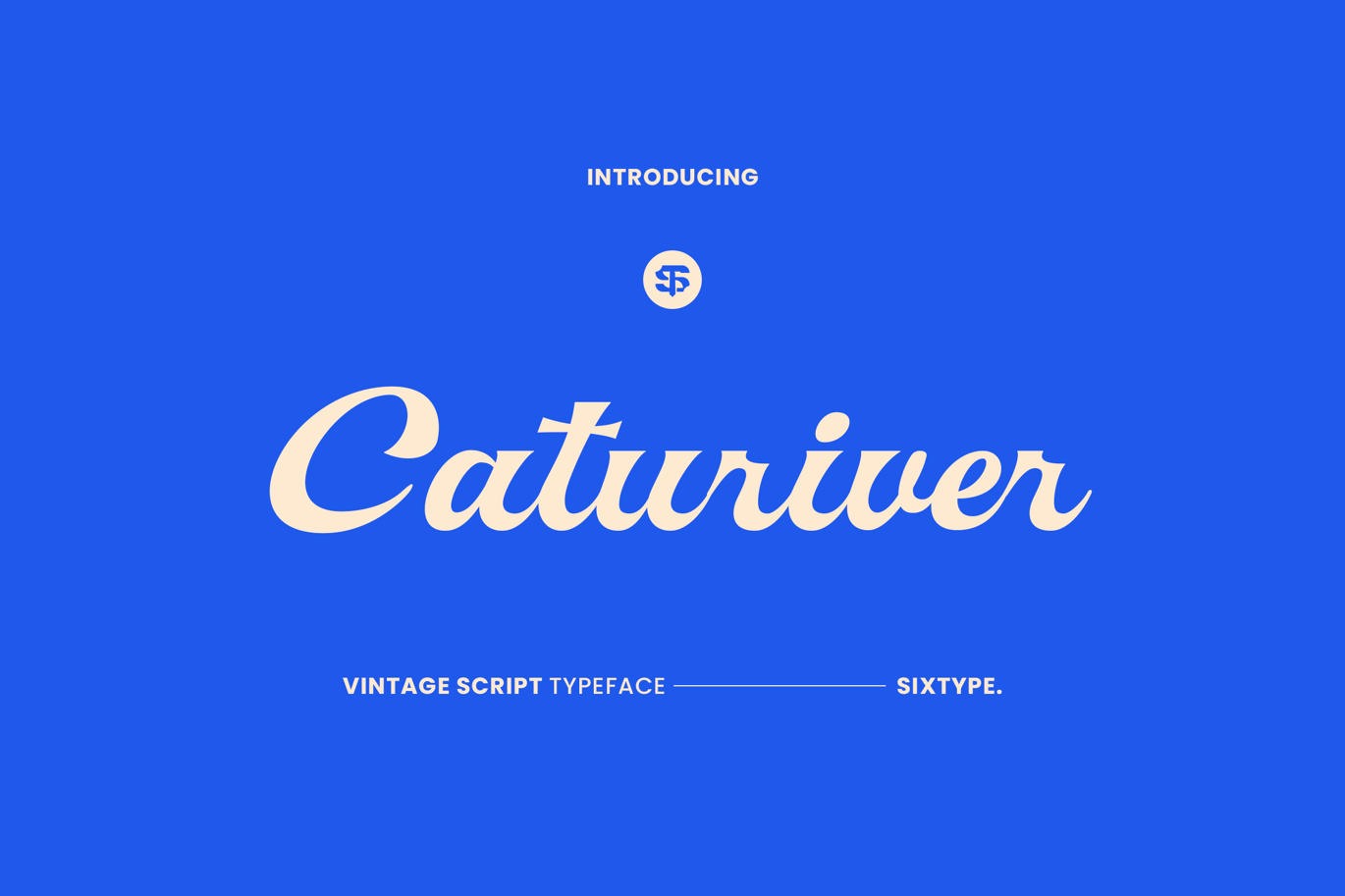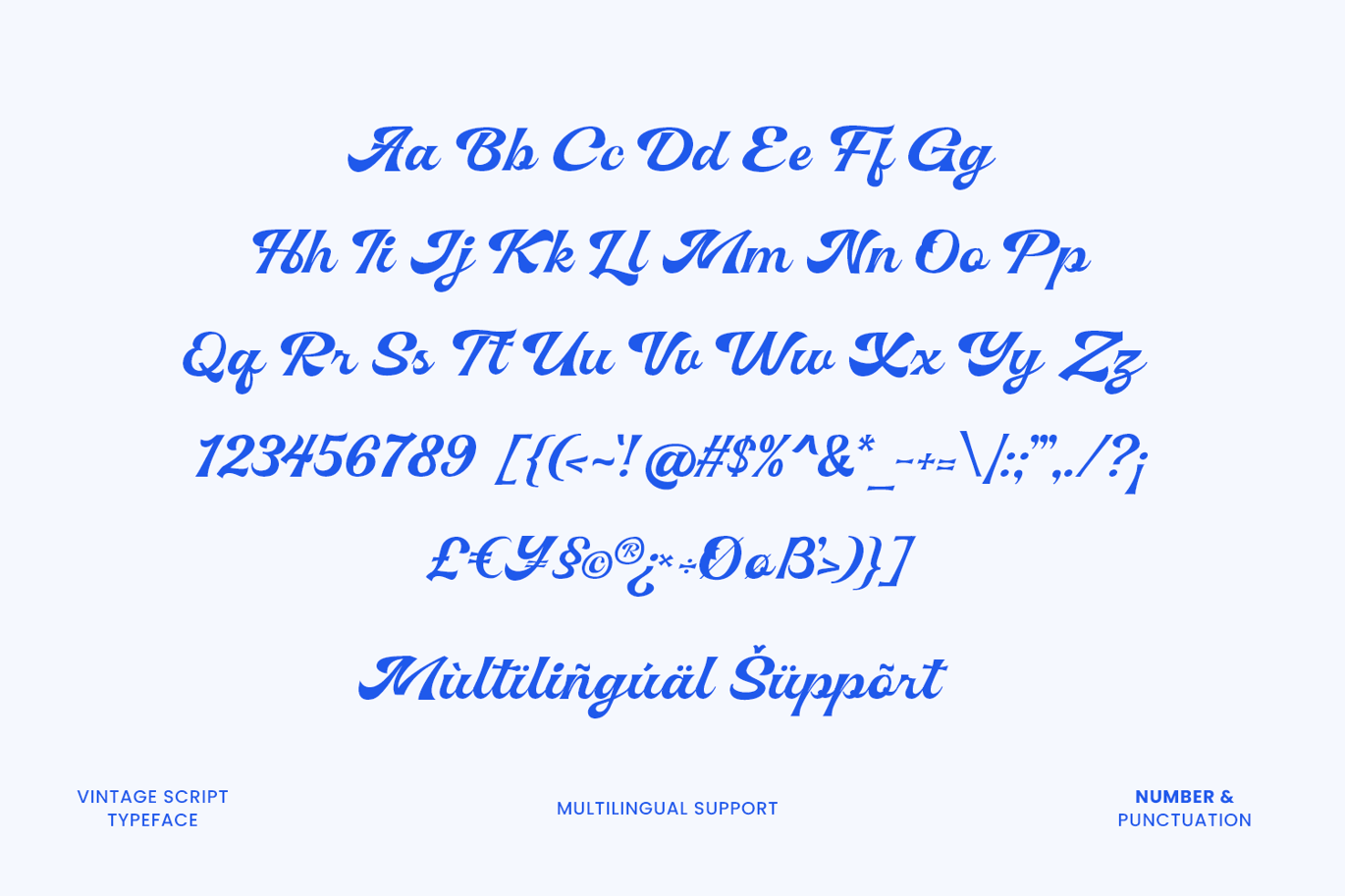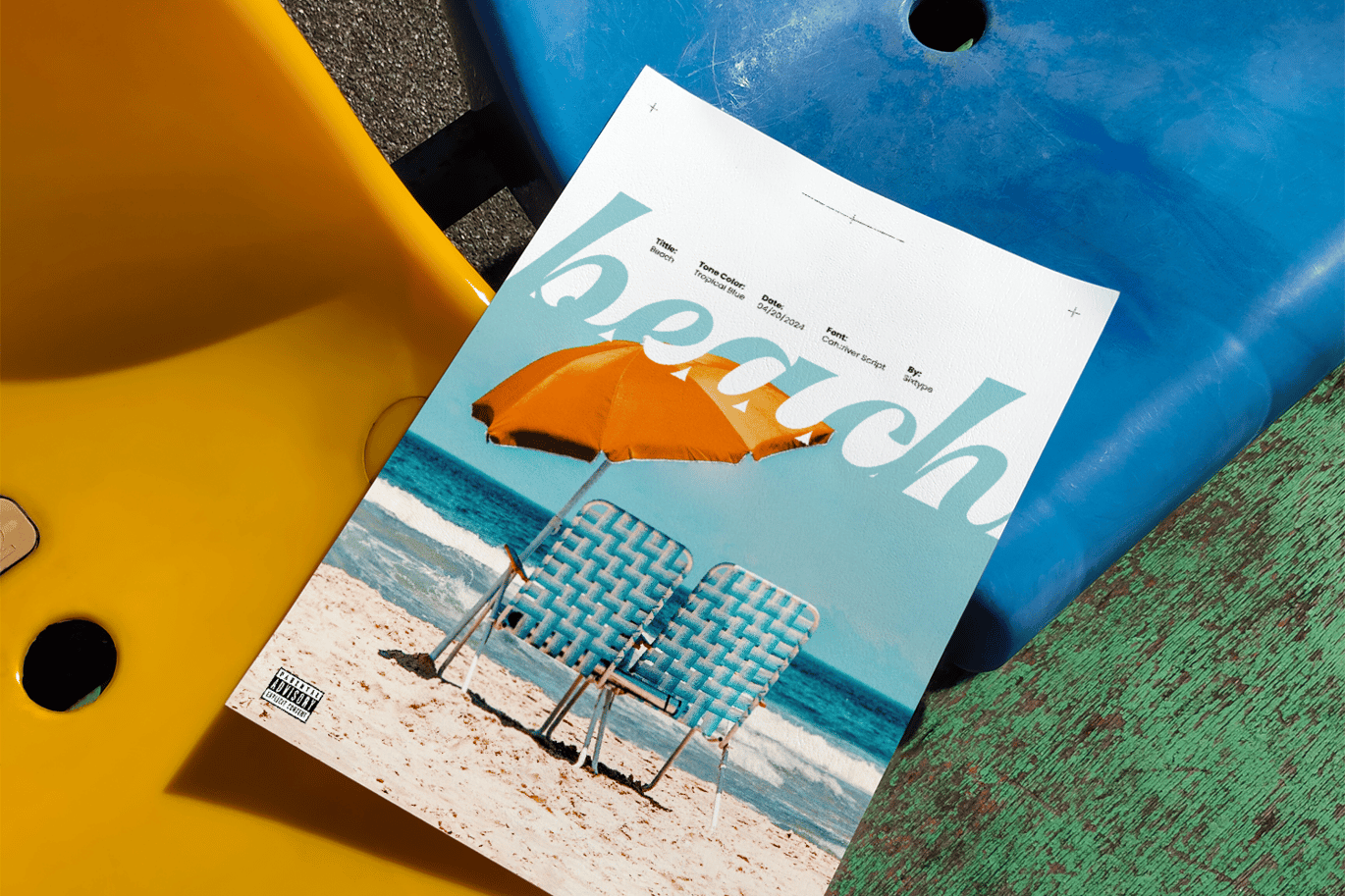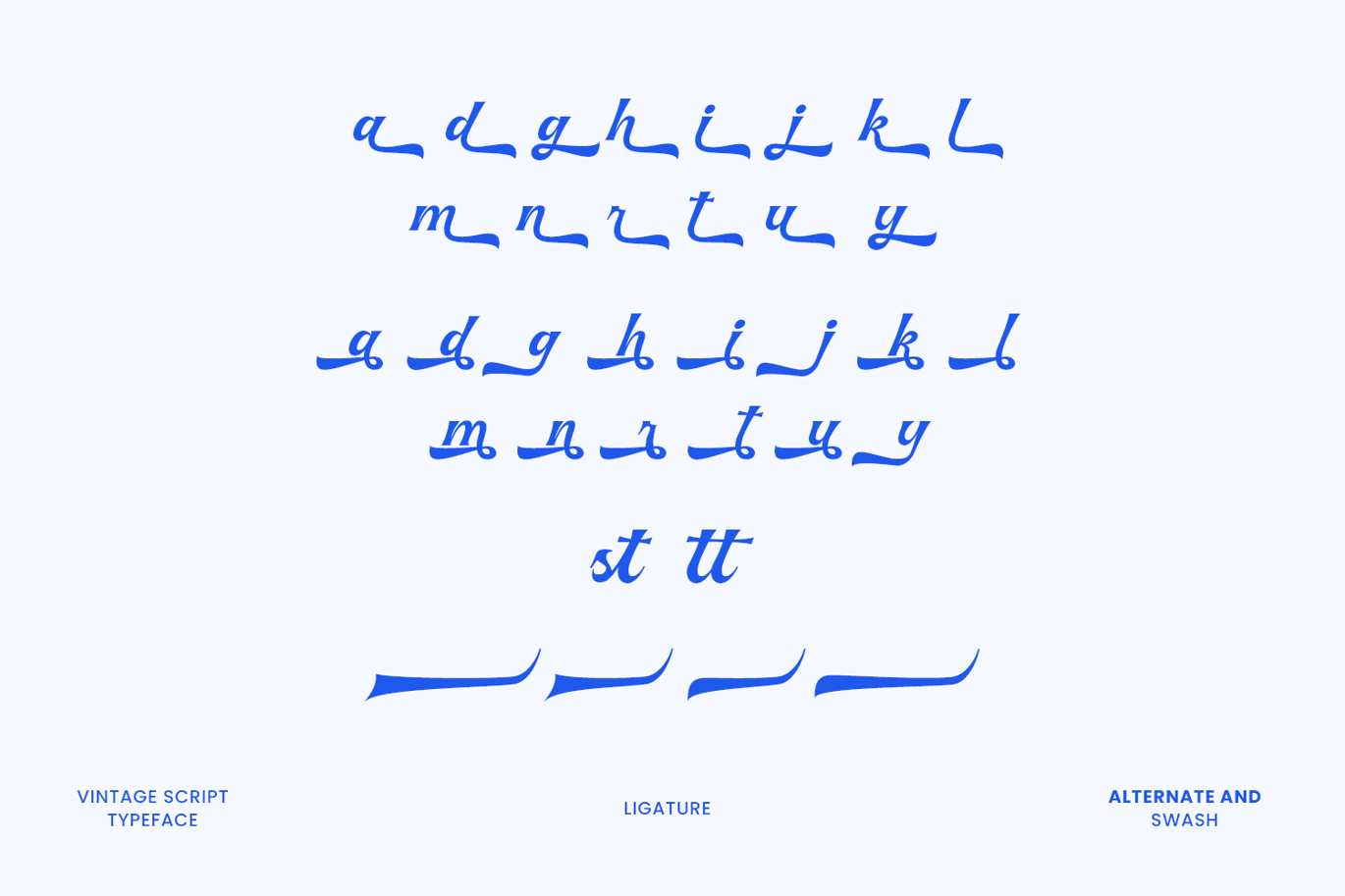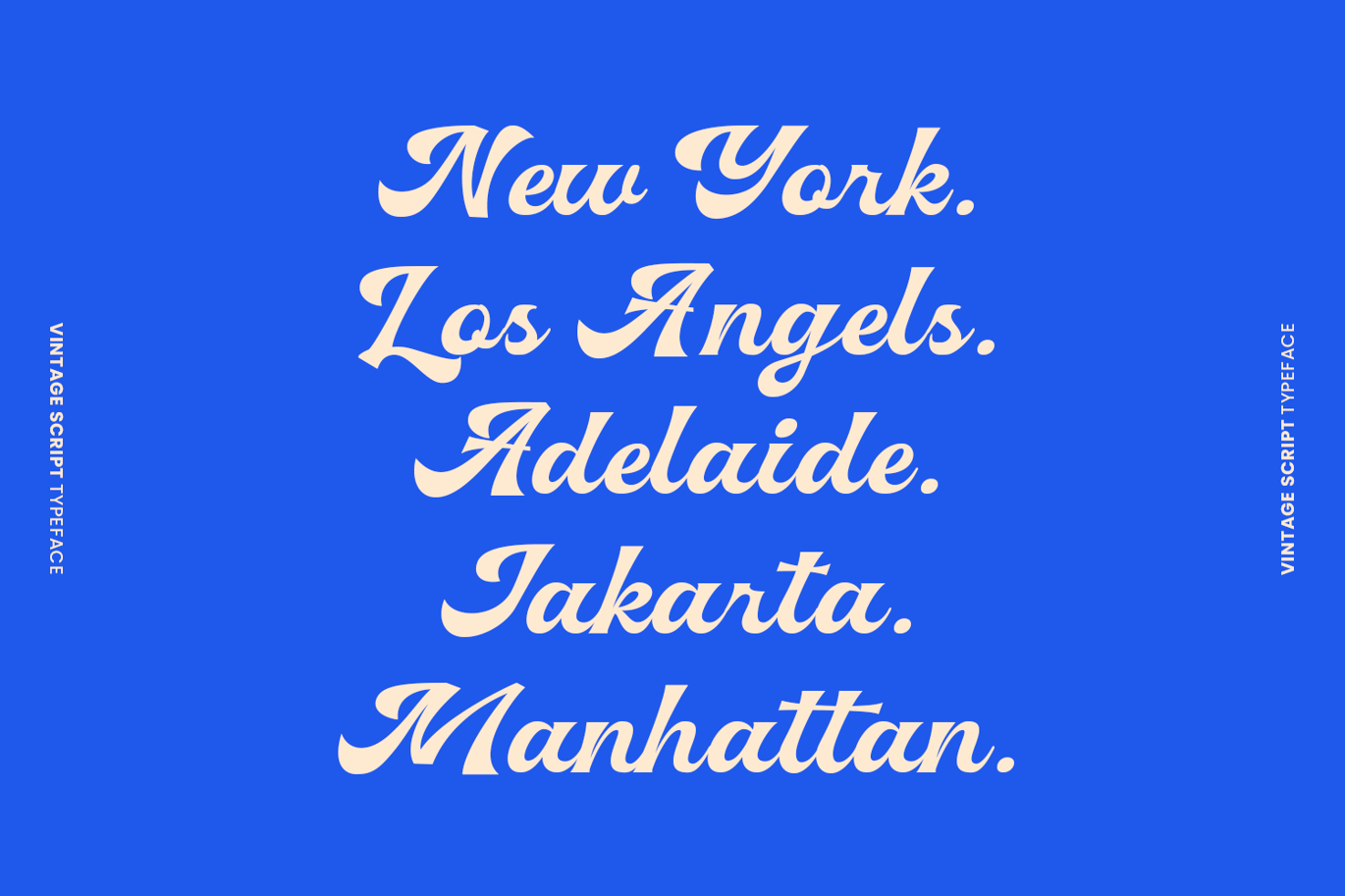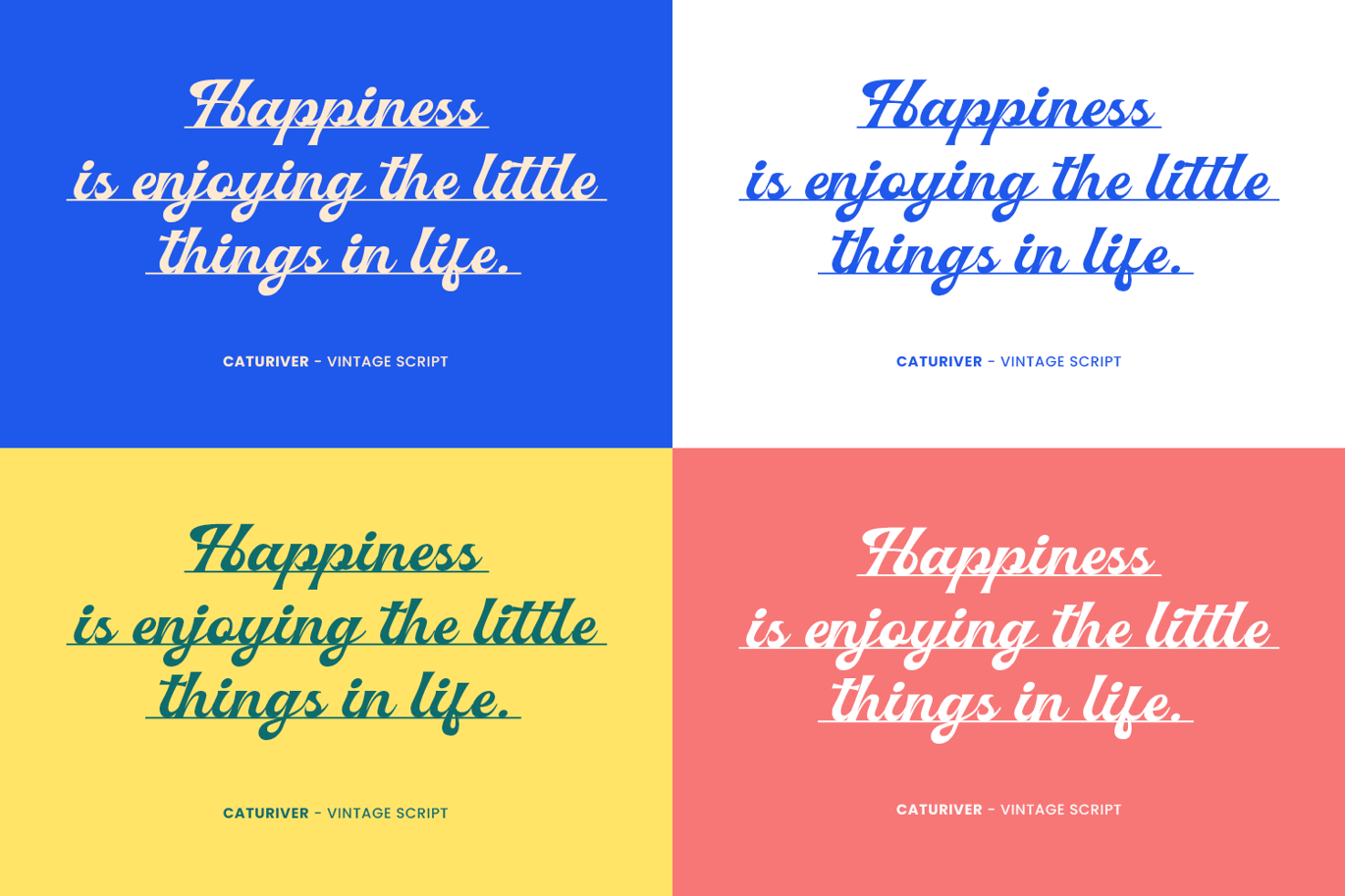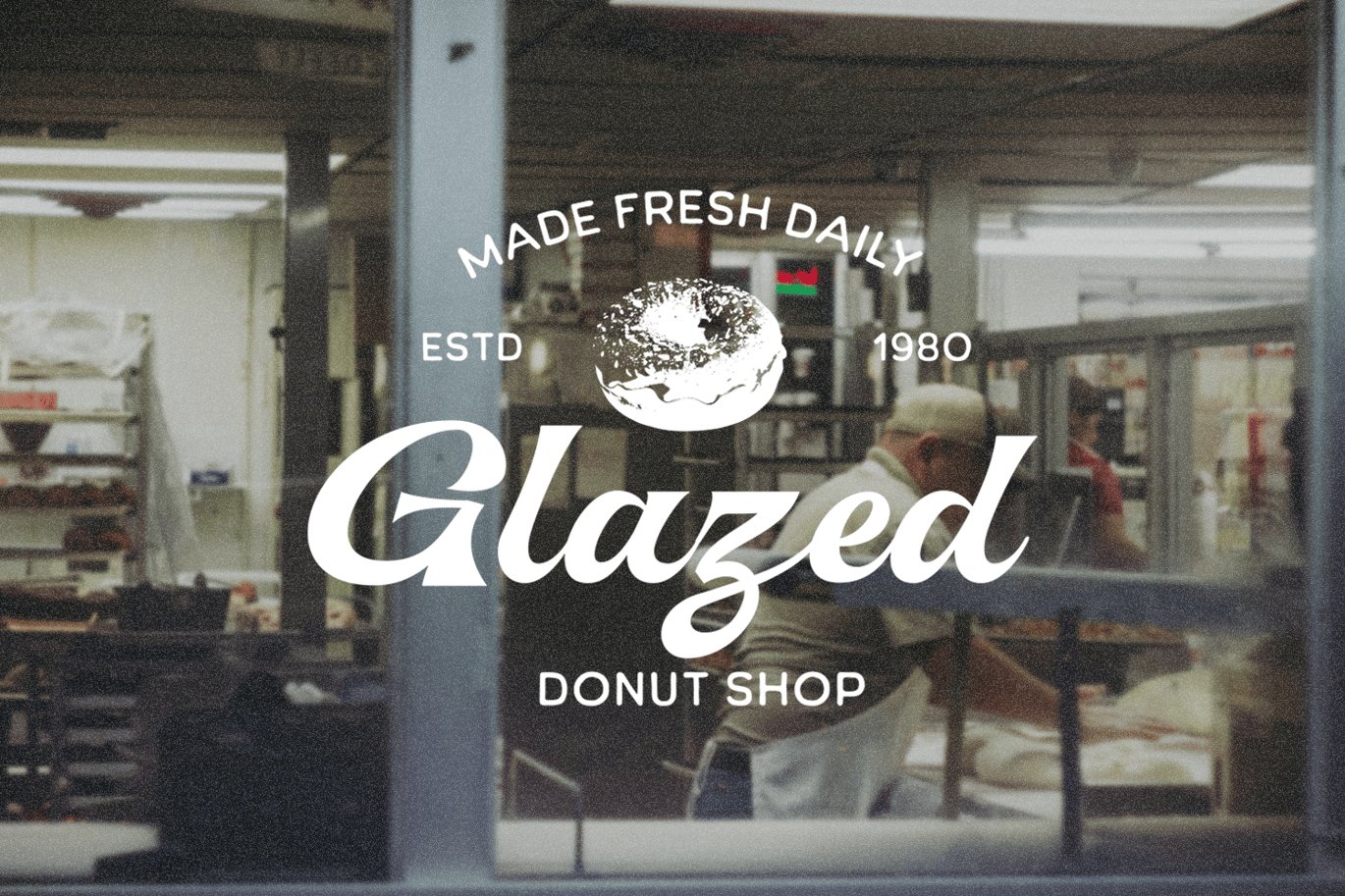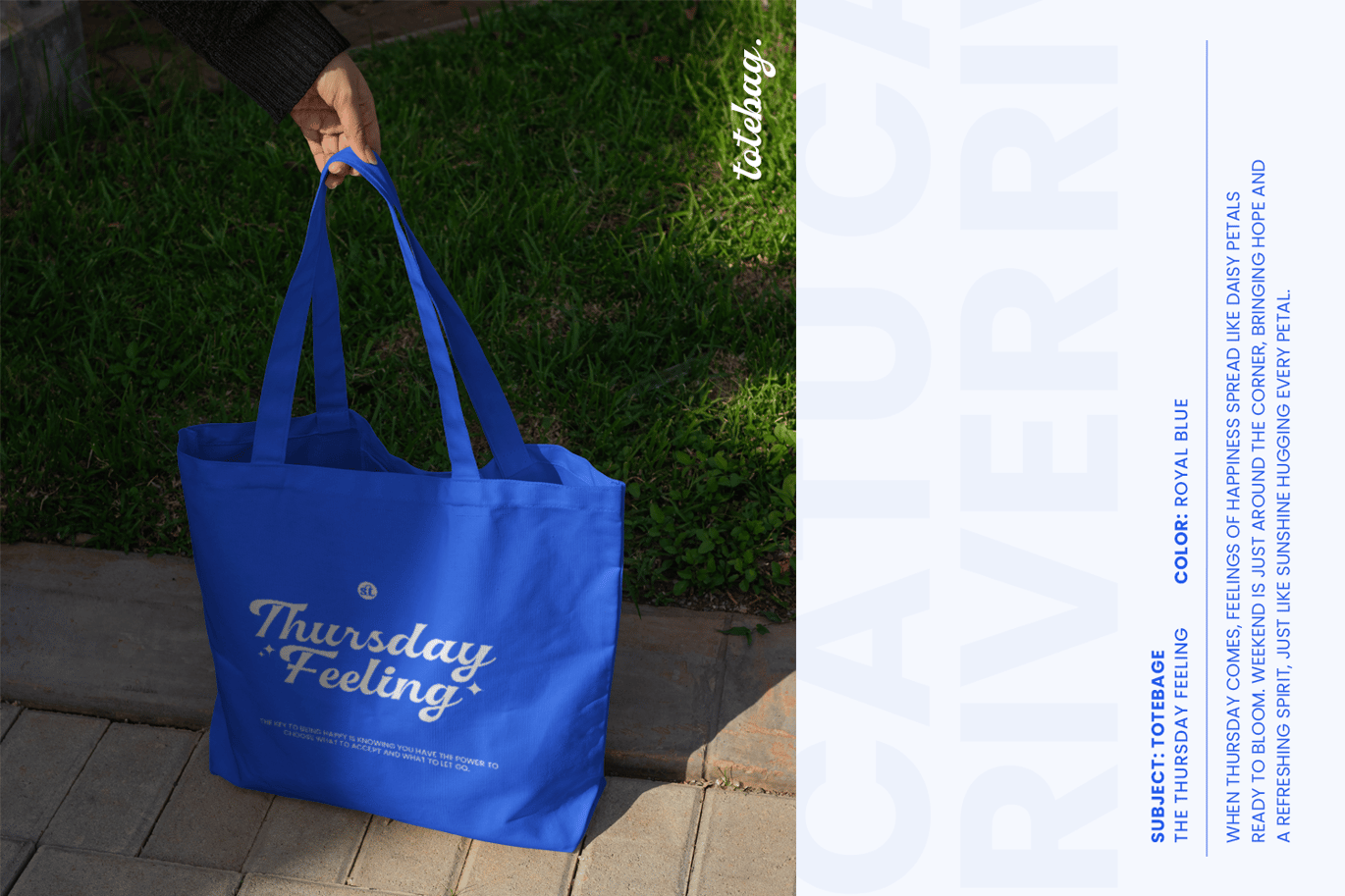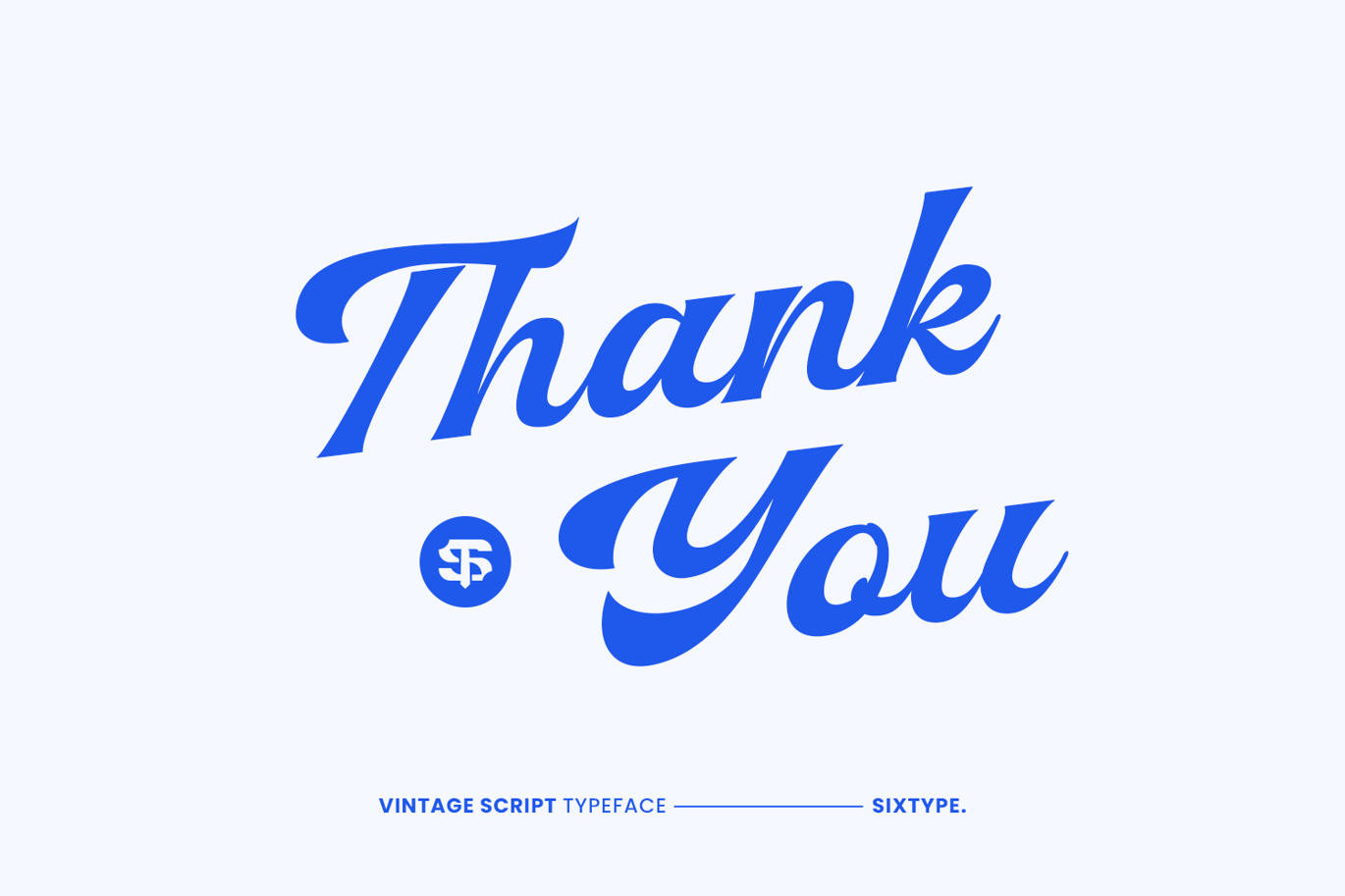
Caturiver – Vintage Script Font
Introducing Caturiver a vintage script font that transports you back to the golden age of vintage design, infusing your projects with nostalgic charm and timeless appeal. Crafted with meticulous attention to detail, Caturiver captures the essence of vintage script, its characters flowing with a grace that speaks of handwritten love letters and meticulously penned invitations. Whether you’re creating retro logos, signage, apparel designs, or packaging, this script font brings an air of nostalgia and authenticity to any project.
- Uppercase, Lowercase, Number, Punctuation and Multilingual